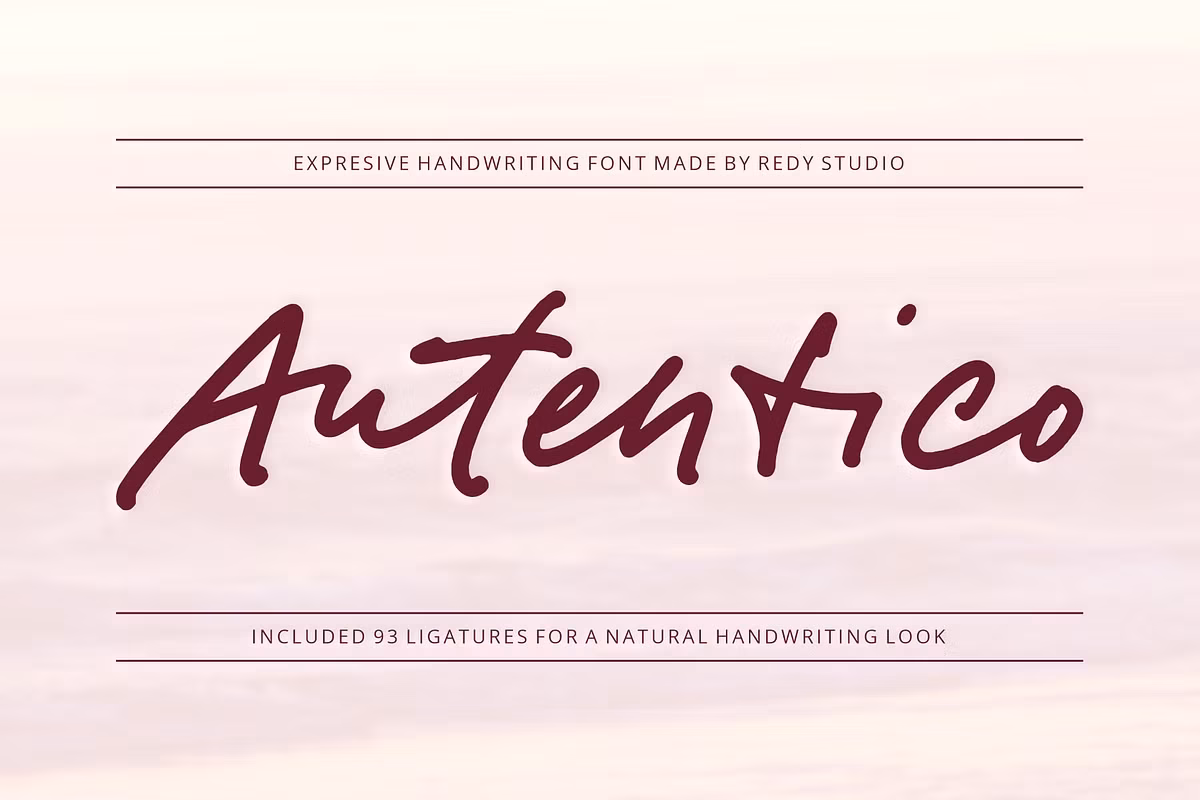
Autentico – Realistic Handwriting Font Free Download is a beautifully crafted typeface that captures the natural flow and detail of genuine handwriting. With its organic strokes, variable pressure, and authentic character, this font is perfect for journals, branding, signature logos, lifestyle blogs, and heartfelt messaging.
Autentico – Realistic Handwriting Font Free Download brings a personal, handwritten touch to any design. Whether you're aiming for elegance or everyday warmth, this font adapts seamlessly, offering both professionalism and emotion in your typography.
Ideal for both print and digital applications, Autentico maintains legibility while delivering an authentic, pen-on-paper feel. Try it in personal projects or mockups to explore its style—but remember, a commercial license is required for any professional or client work. Make your designs feel truly handwritten with the sincere beauty of Autentico.